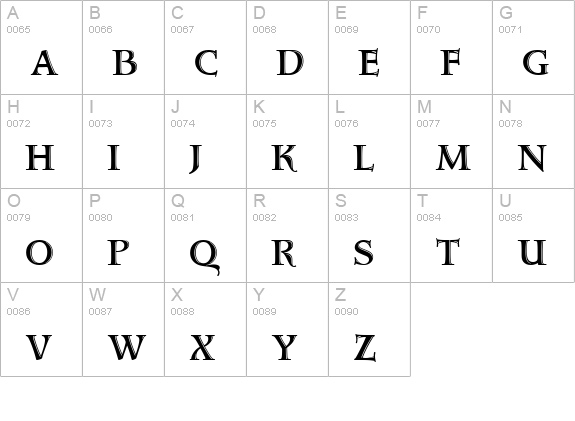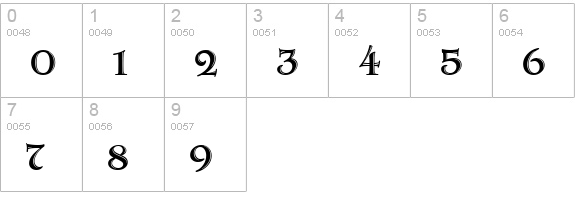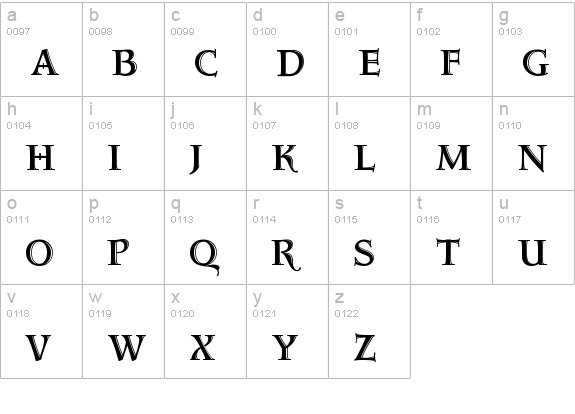
Aquitaine Initials ICG font is a stunning display typeface that exudes elegance and sophistication. With its intricate details and ornate design, this font is perfect for adding a touch of luxury to your projects. The delicate swirls and flourishes of the Aquitaine Initials ICG font make it a standout choice for invitations, branding, and other creative endeavors. What's even better is that Aquitaine Initials ICG font is available for free download at FontsMarket.com. This means you can easily access this beautiful font and incorporate it into your designs without any cost. Don't miss out on the opportunity to enhance your work with the timeless charm of Aquitaine Initials ICG font. Download it today and elevate your projects to new heights of sophistication and style.